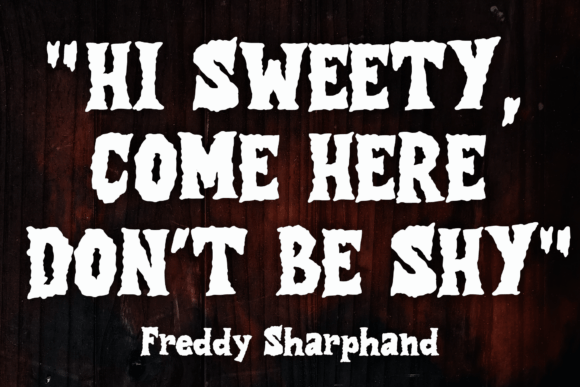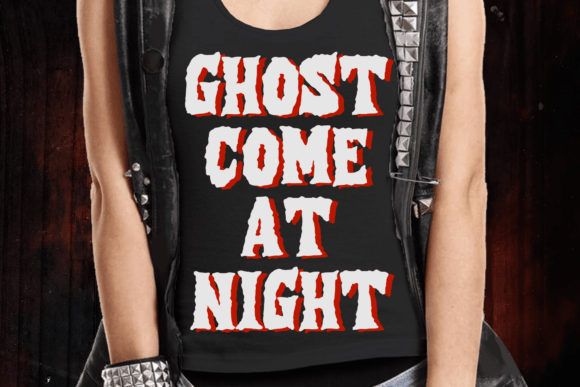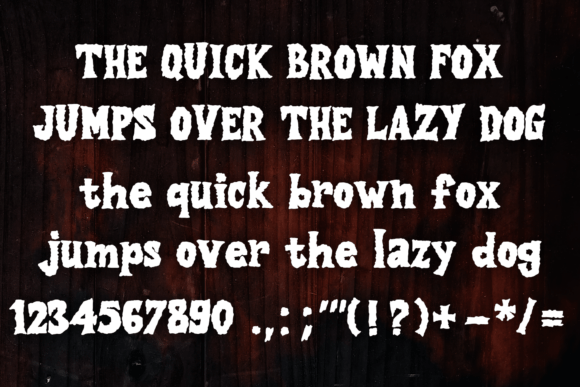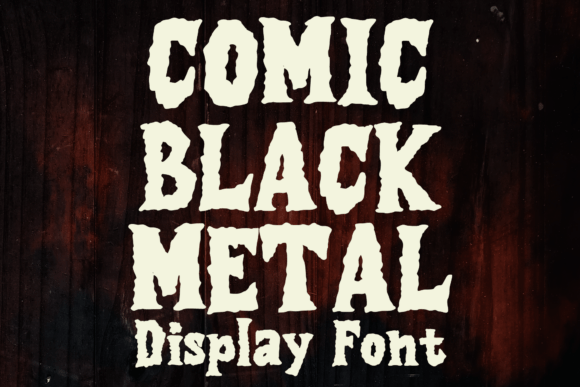
Unleash the Terror: Discover the Comic Black Metal Font
Welcome to the chilling realm of Comic Black Metal, a fear-inducing horror font dripping with a bone-chilling allure. Infused with the raw, primal energy of iconic horror films, eerie comics, and the pulsating rhythm of Metal music, this font is more than mere lettering – it’s a rodeo of terror. Whether you’re a designer, crafter, or horror enthusiast, Comic Black Metal is the quintessential element for all your sinister and Halloween designs.
The Essence of Comic Black Metal
Imagine a font that captures the dark, edgy spirit of horror movies and comics, and combines it with the aggressive, head-banging energy of Metal music. Comic Black Metal is that font. Its unique design is inspired by the bold, fearless aesthetic of iconic horror films and comics, with a dash of the rebellious, unapologetic attitude of Metal music. The result is a font that’s both terrifying and mesmerizing, perfect for designers and crafters looking to add a touch of horror to their work.
Comic Black Metal is an incredibly versatile font, suitable for a wide range of design projects. Here are just a few ideas to get you started:
- Ghastly Graphic Tees: Use Comic Black Metal to create eye-catching, horror-themed designs for t-shirts, hoodies, and other apparel. The font’s bold, distressed look is perfect for emblazoning eerie phrases or creepy slogans on clothing.
- Spine-Tingling Novels: Give your horror novel a design edge with Comic Black Metal. The font’s haunting elegance is ideal for title pages, chapter headings, and other design elements.
- Halloween Party Aesthetics: Create spooky invitations, decorations, and party favors with Comic Black Metal. The font’s eerie charm will set the tone for a howling good time.
- Ghoulish Greeting Cards: Add a touch of horror to your greeting cards with Comic Black Metal. The font’s bold, playful look is perfect for Halloween cards, birthday greetings, and other occasions.
- Unsettling Stickers and Posters: Transform stickers and posters into unsettling yet irresistible pieces of artwork with Comic Black Metal. The font’s distressed, horror-inspired look is sure to grab attention.
Why Choose Comic Black Metal?
With so many fonts available, why choose Comic Black Metal? Here are just a few reasons why designers and crafters love this horror font:
- Unique Design: Comic Black Metal’s bold, distressed look is unlike any other font. Its unique design ensures that your work will stand out from the crowd.
- Versatility: This font is incredibly versatile, suitable for a wide range of design projects, from horror-themed apparel to spooky party decorations.
- Eerie Elegance: Comic Black Metal’s haunting elegance adds a touch of sophistication to any design, making it perfect for designers and crafters looking to create high-quality, horror-themed work.
Get Ready to Unleash the Terror
Are you ready to unleash the terror of Comic Black Metal on your designs? With this font, every artistic output evolves into an intriguing spectacle, a heartfelt ode to the horror genre. Lose yourself in its haunting embrace and let its terror-touch permeate through all your designs. Whether you’re a seasoned designer or a crafter looking to add a touch of horror to your work, Comic Black Metal is the perfect choice.
In conclusion, Comic Black Metal is a fear-inducing horror font that’s perfect for designers and crafters looking to add a touch of terror to their work. With its unique design, versatility, and eerie elegance, this font is sure to become a staple in your design arsenal. So why wait? Unleash the terror of Comic Black Metal and let your designs scream with horror.